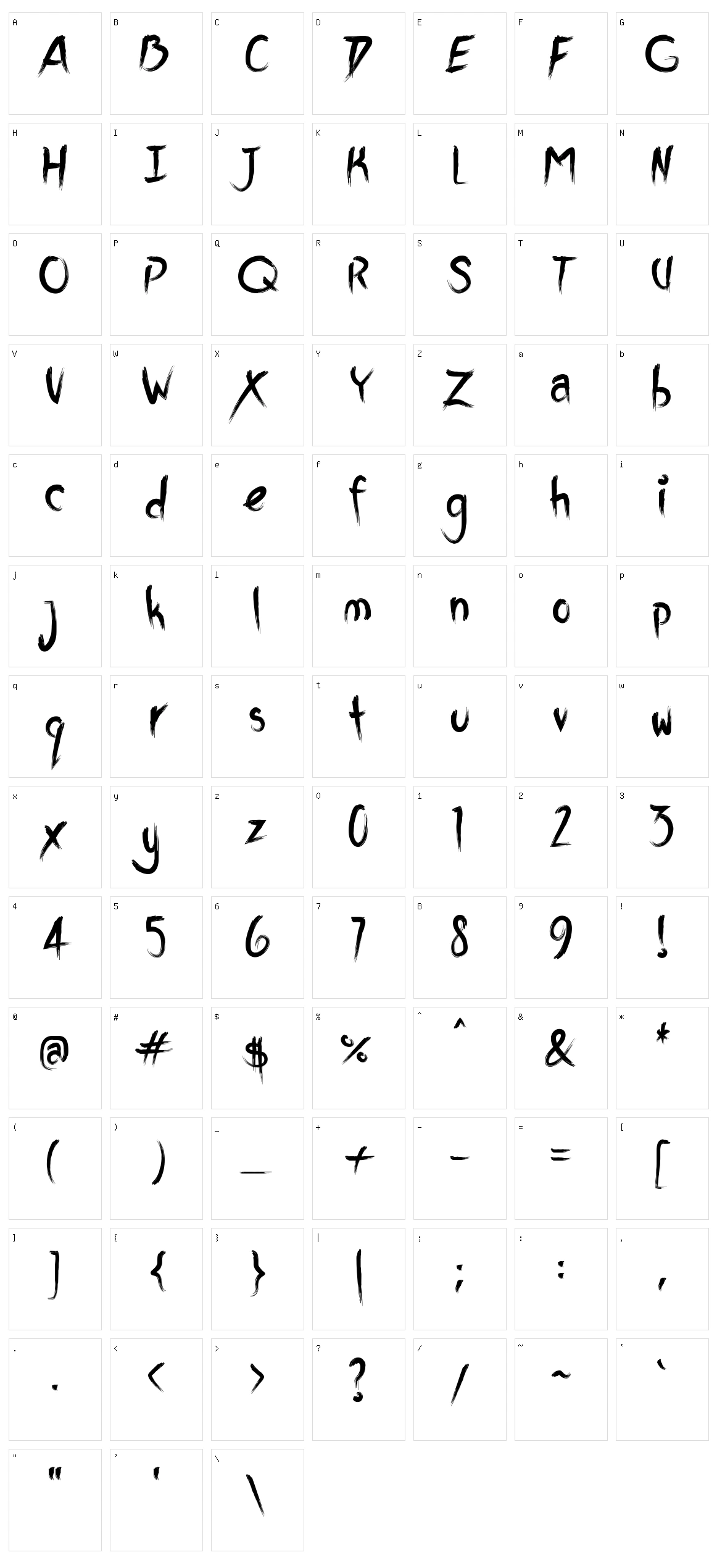
The free font Buried K9 is carefully designed by limbuMAFIA, showcasing a thoughtful balance of creativity and usability and falls under the Script font style. When you download the ZIP file, it contains only 185.49 KB of font files, making it lightweight and quick to download. Please review the license details below to understand permitted usage and distribution rights. If license information is not available, we recommend using this font for personal projects only or contacting the author directly for commercial usage permissions.